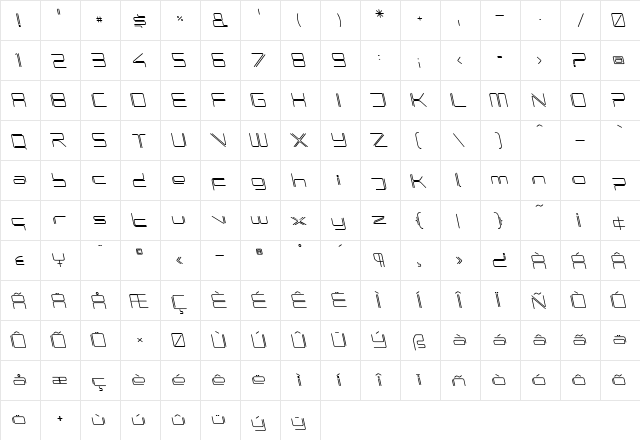
PhutureRndOpen Italic Font Preview
PhutureRndOpen Italic
PhutureRndOpen Italic Font Details
Design Context for PhutureRndOpen Typeface
PhutureRndOpen takes a measured approach to typography — its balanced proportions and neutral character make it a reliable workhorse for both digital and print work. Its italic angle brings a sense of urgency and motion to the letterforms.